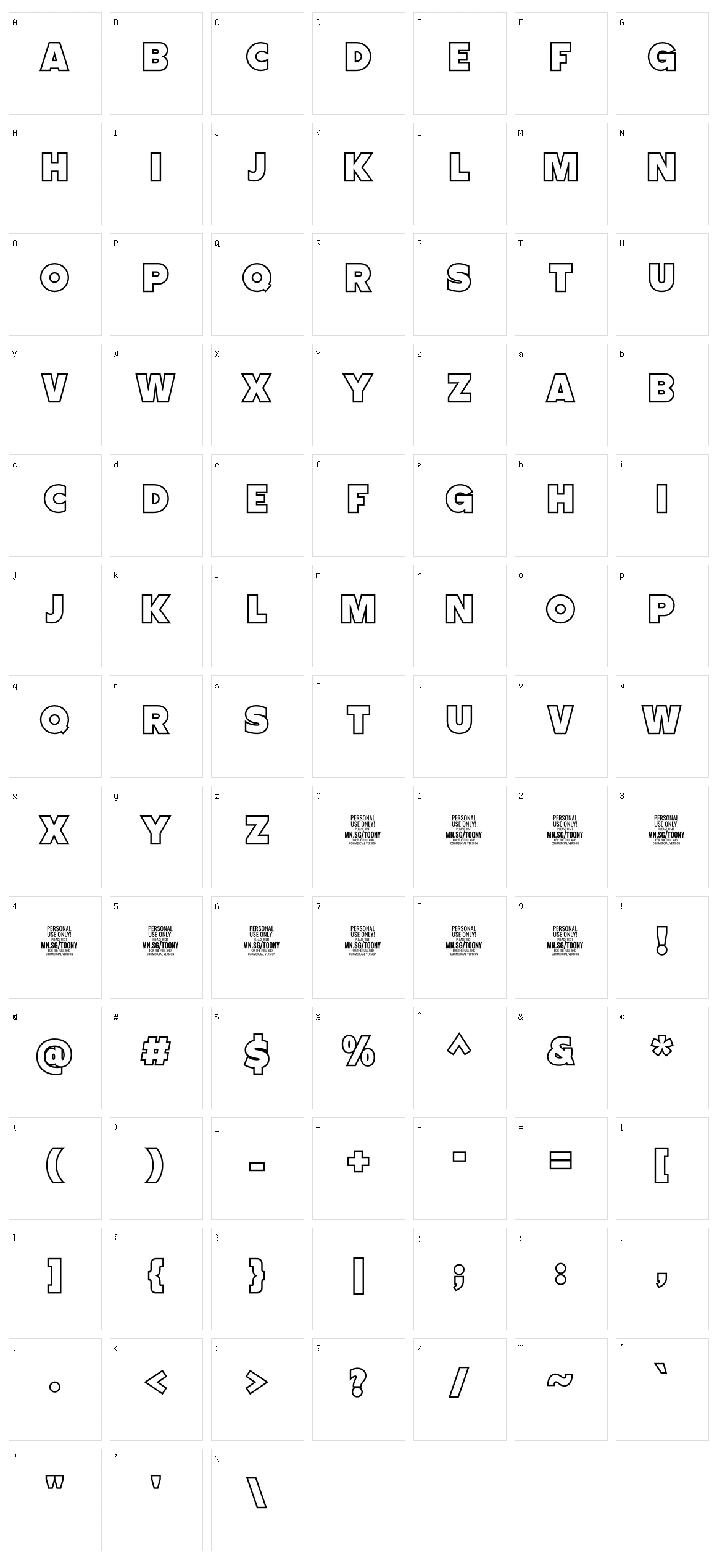
Toony Line is a comic font that feels like a delightful throwback to the golden age of cartoons.
Funny and loony, the font channels playful tunes while its sharp, sans-serif characters dance on the page with a joy reminiscent of our favorite animated classics. There's a hint of Mickey's magic, a dash of Disney dreaminess, and the unapologetic boldness of comic strips and street art. But what sets Toony Line apart is its intricate overlapping effect, made possible by sophisticated OpenType.
This isn’t just a typeface; it’s a trip down memory lane, reinventing the retro and fun for modern marvels.
The font is built with advanced OpenType functionality and has a guaranteed top-notch quality, containing stylistic and contextual alternates, ligatures, and more features; all to give you full control and customizability. It has extensive lingual support, covering all Latin-based languages, from Northern Europe to South Africa, from America to South-East Asia. It contains all characters and symbols you'll ever need, including all punctuation and numbers.
With every font he crafts, Toony's creator Mans Greback doesn't just design; he tells a story. His ability to weave emotion and complex functions into a single typeface ensures top quality results that leaves an imprint in all projects.